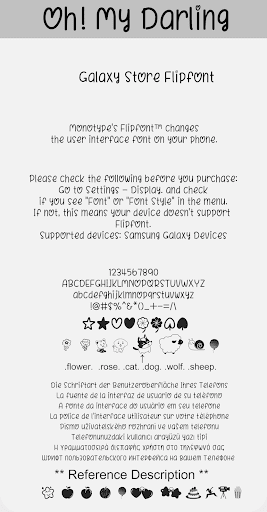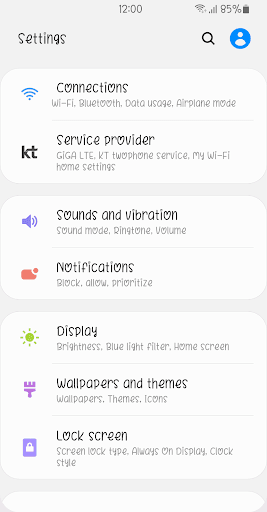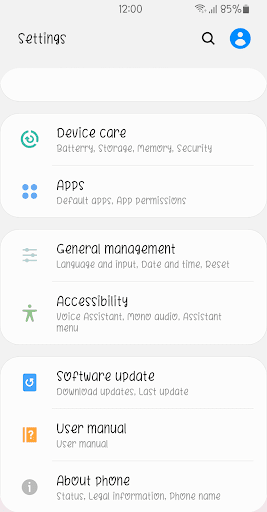
BROhMyDarling
It's a font with a heart in the alphabet "O".
This font has some feature.
1 .flower. .rose. .cat.. .dog. wolf. sheep. ,heart, ,star, ,boy, ,girl, ,club, ,phone, ,finger, ==> Convert to Icon
2 .^^. .\/. .**. .Apple. .apple. .peach. .Peach. .pear. .Pear. .balloon. .Balloon.
.heart. .Heart. .star. .Star. .cake. .Cake. .dance. .Dance.
.car. .Car. .train. .Train. .movie. .camera. .popcorn. .snail.